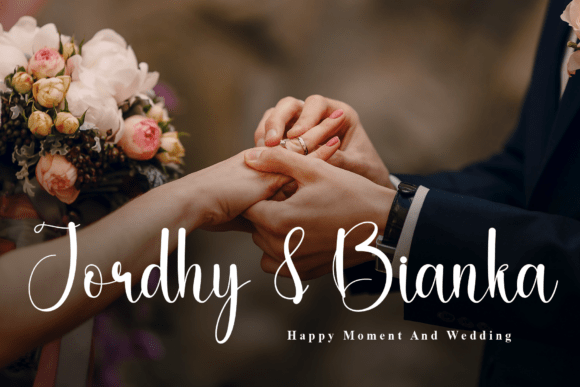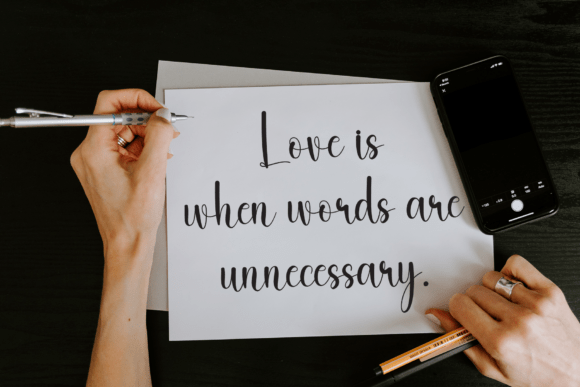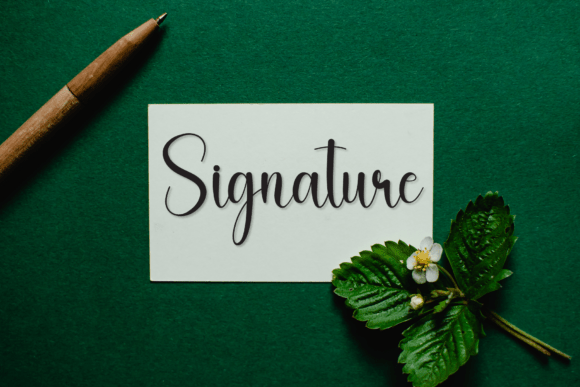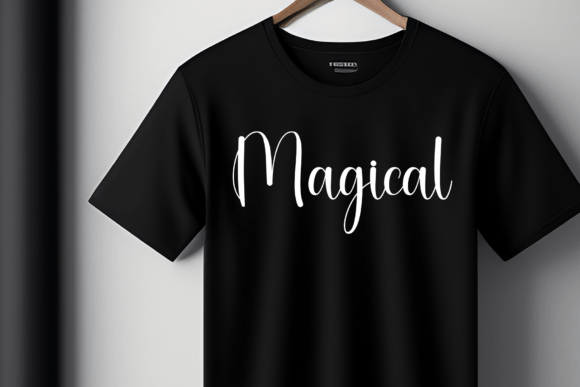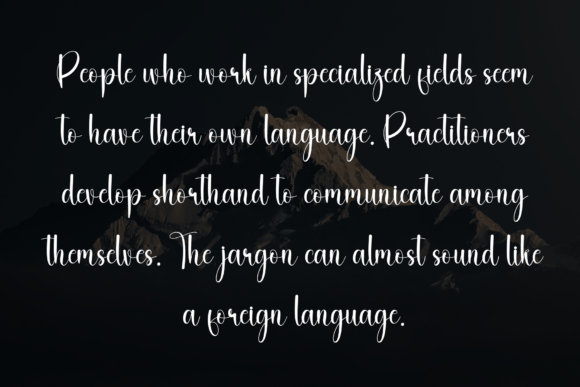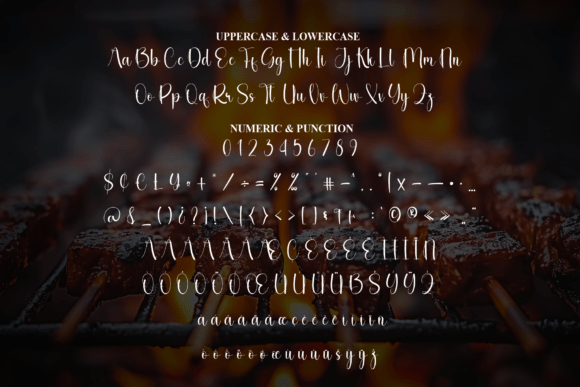
Introducing Barbecue Font: The Perfect Blend of Whimsy and Warmth
Are you tired of using the same old fonts in your designs? Look no further! Our Barbecue Font is here to add a touch of magic to your creative projects. With its captivating charm and welcoming warmth, this handmade font is sure to energize your design ideas and bring them to radiant life.
The Perfect Font for Whimsical Designs
Barbecue Font is a typeface that exudes a sense of magical whimsy, making it ideally suited for creating ethereal wedding invitations, touching greeting cards, or other artistic endeavors seeking a fairy-tale touch. Its unique and enchanting style is sure to captivate your audience and leave a lasting impression.
Key Features of Barbecue Font
- Handmade with love: Each letter has been carefully crafted to ensure a personal touch that sets it apart from generic fonts.
- Welcoming warmth: The font’s warm and inviting style makes it perfect for designs that require a cozy and intimate feel.
- Vibrant energy: Barbecue Font is full of life and energy, making it ideal for designs that require a playful and lively touch.
- Ethereal and whimsical: The font’s magical and enchanting style is sure to add a touch of wonder to your designs.
Use Barbecue Font to Elevate Your Designs
Whether you’re a designer, crafter, or DIY enthusiast, Barbecue Font is the perfect addition to your creative toolkit. Use it to:
- Accentuate feelings: Add a touch of warmth and personality to your designs and make them more relatable.
- Enhance allure: Create designs that are visually stunning and captivating, and leave a lasting impression on your audience.
- Infuse joy: Bring a sense of happiness and playfulness to your designs and make them more engaging.
Seamless Integration into Your Designs
Barbecue Font is designed to integrate flawlessly into your custom-made storytelling. Its unique style and whimsical charm make it easy to pair with other fonts and design elements, ensuring a cohesive and visually appealing design.
Tips for Using Barbecue Font
- Pair with contrasting fonts: Combine Barbecue Font with a contrasting font to create visual interest and add depth to your design.
- Experiment with colors: Try out different colors and textures to add an extra layer of personality to your design.
- Use it sparingly: Use Barbecue Font sparingly to create emphasis and add a touch of whimsy to your design.